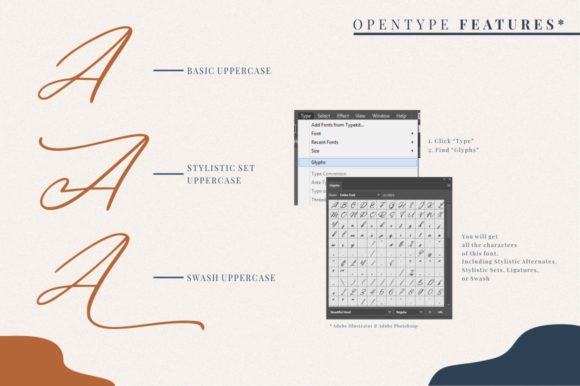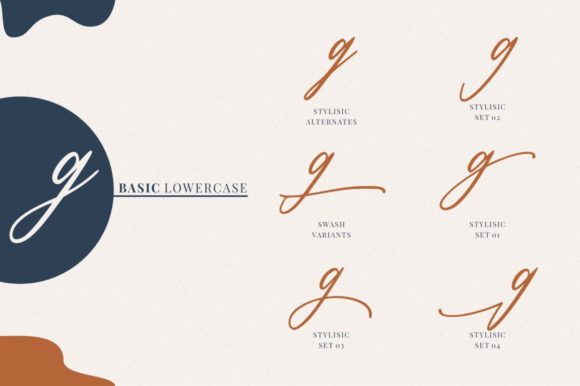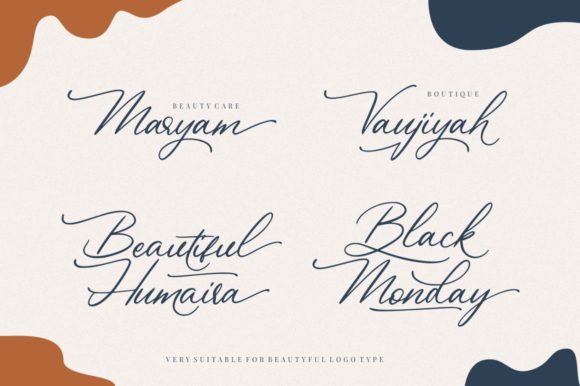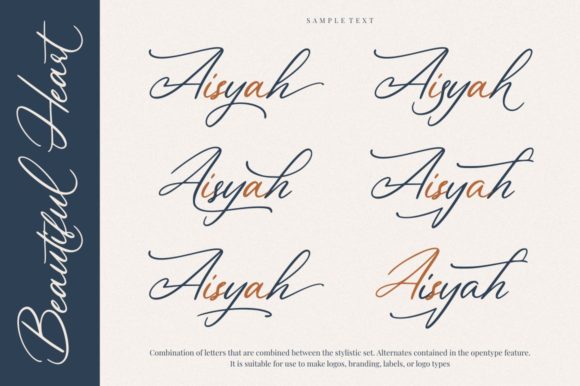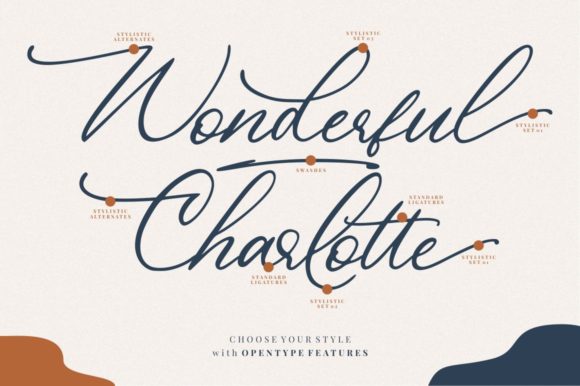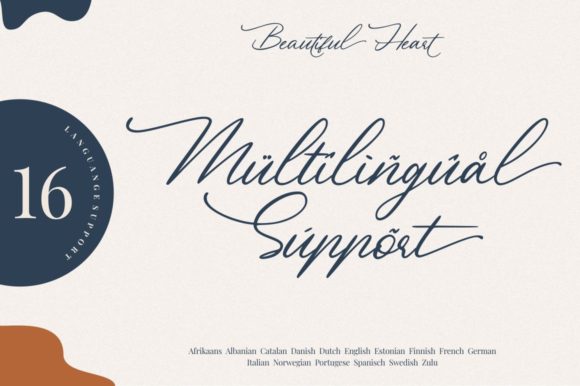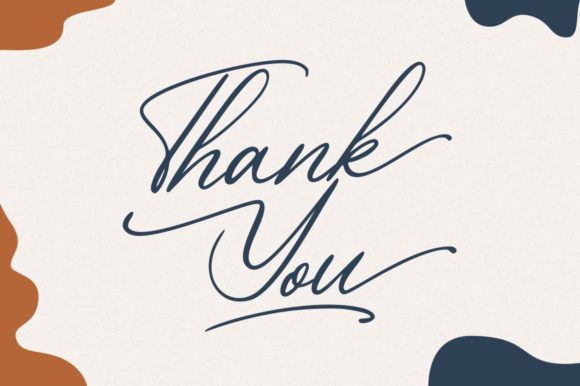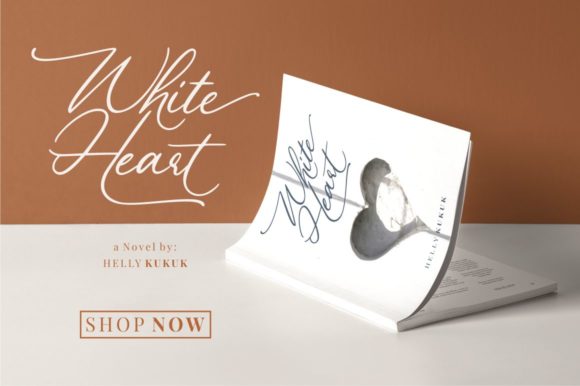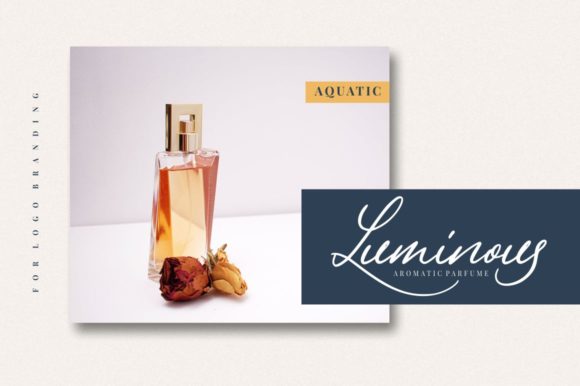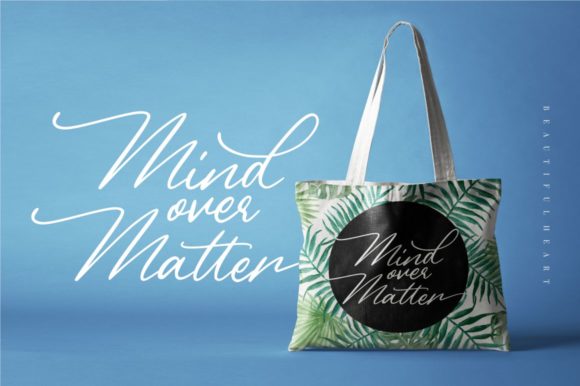
Beautiful Heart Font
About Beautiful Heart Font
Beautiful Heart is a stunningly modern and vibrant handwritten script with great swashes. It’s perfect for adding a personal touch to any design idea.